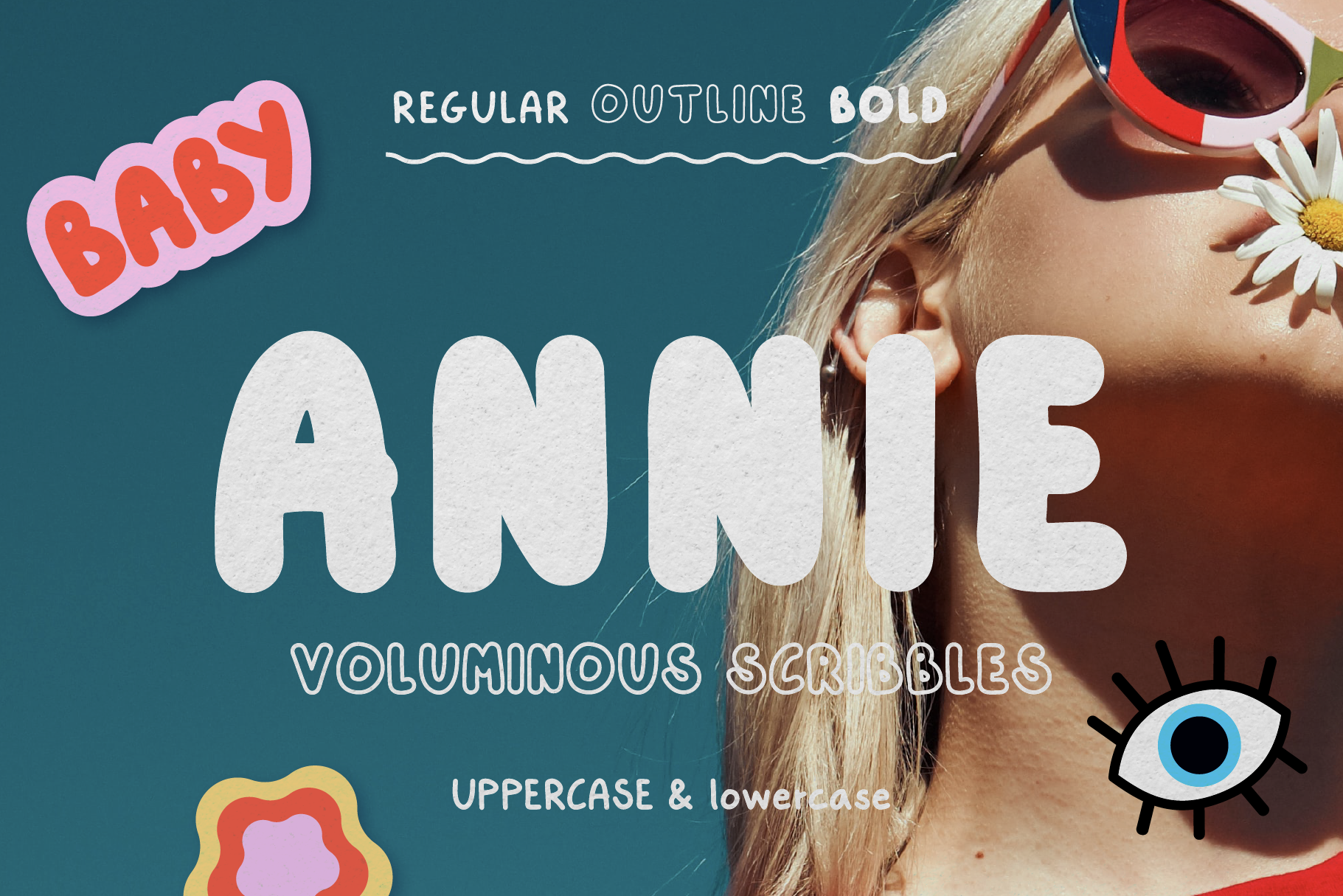
Annie - Voluminous Retro Typeface
Annie | Voluminous & Retro Sans Serif typeface
A handwritten, loud, bold and courageous sans serif typeface with a retro vibe. Suitable for both big heading and smaller body text. Comes in three different styles - Regular, bold and outline.
- Posters
- Logos
- Shop announcement
- Invitation Cards
- Instagram quote text
- Three different styles: Regular, bold and outline
- Uppercase and lowercase character in all three styles
- Support for almost all Europeans languages
- Numbers and Punctuation